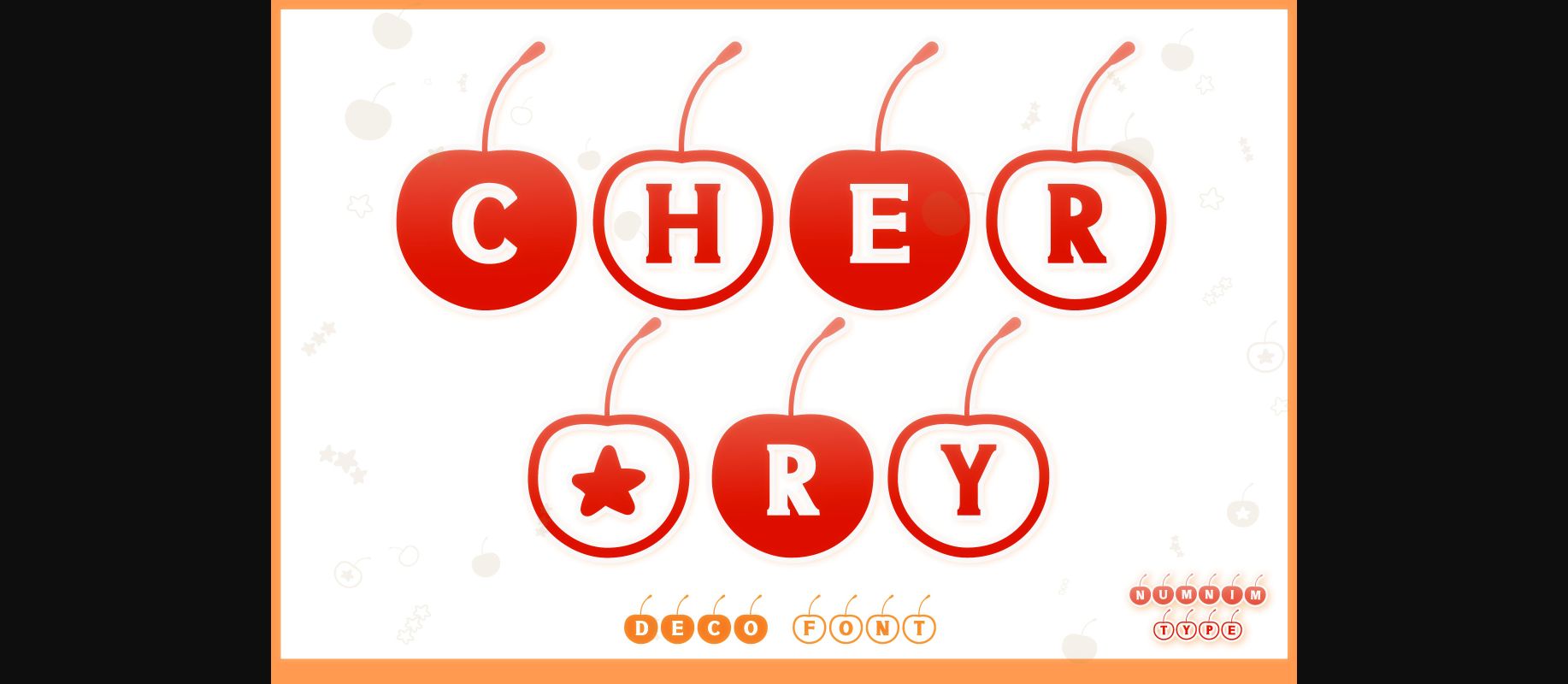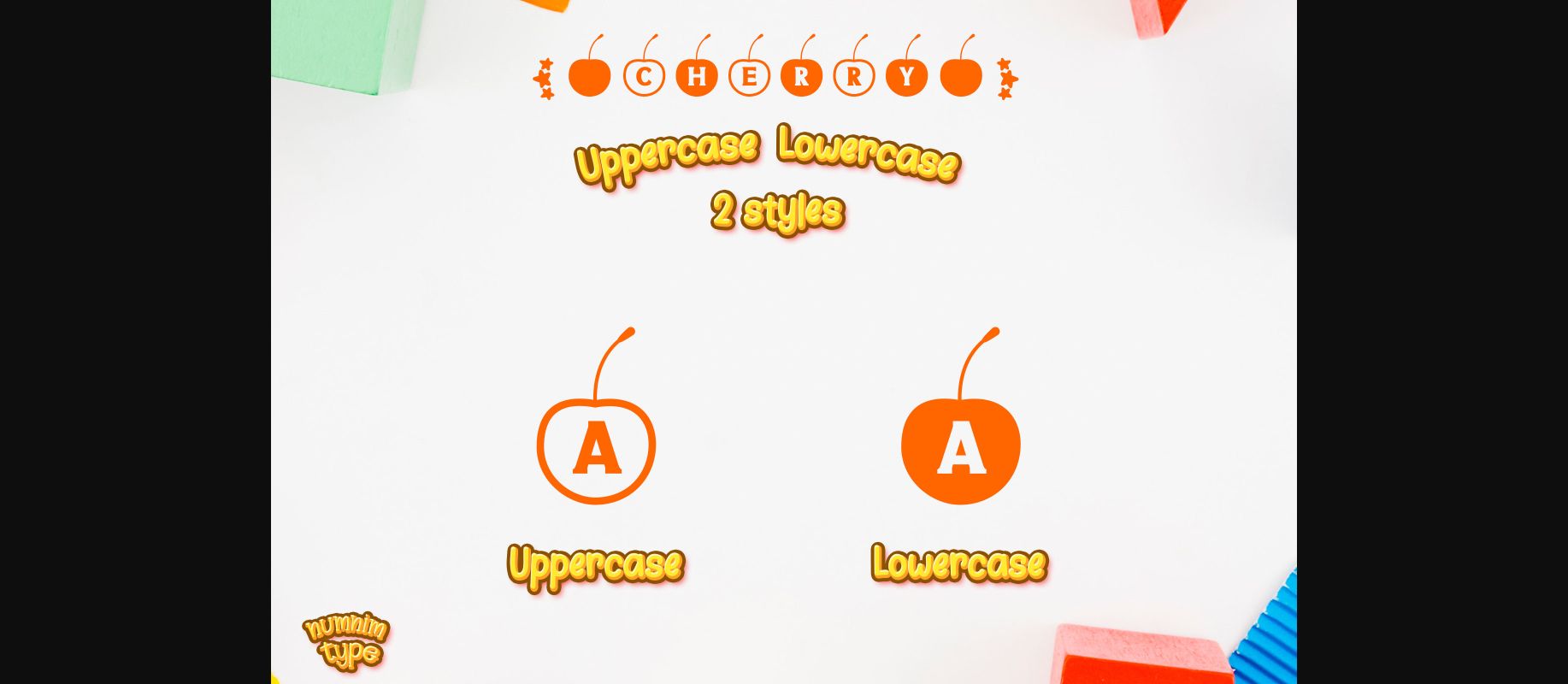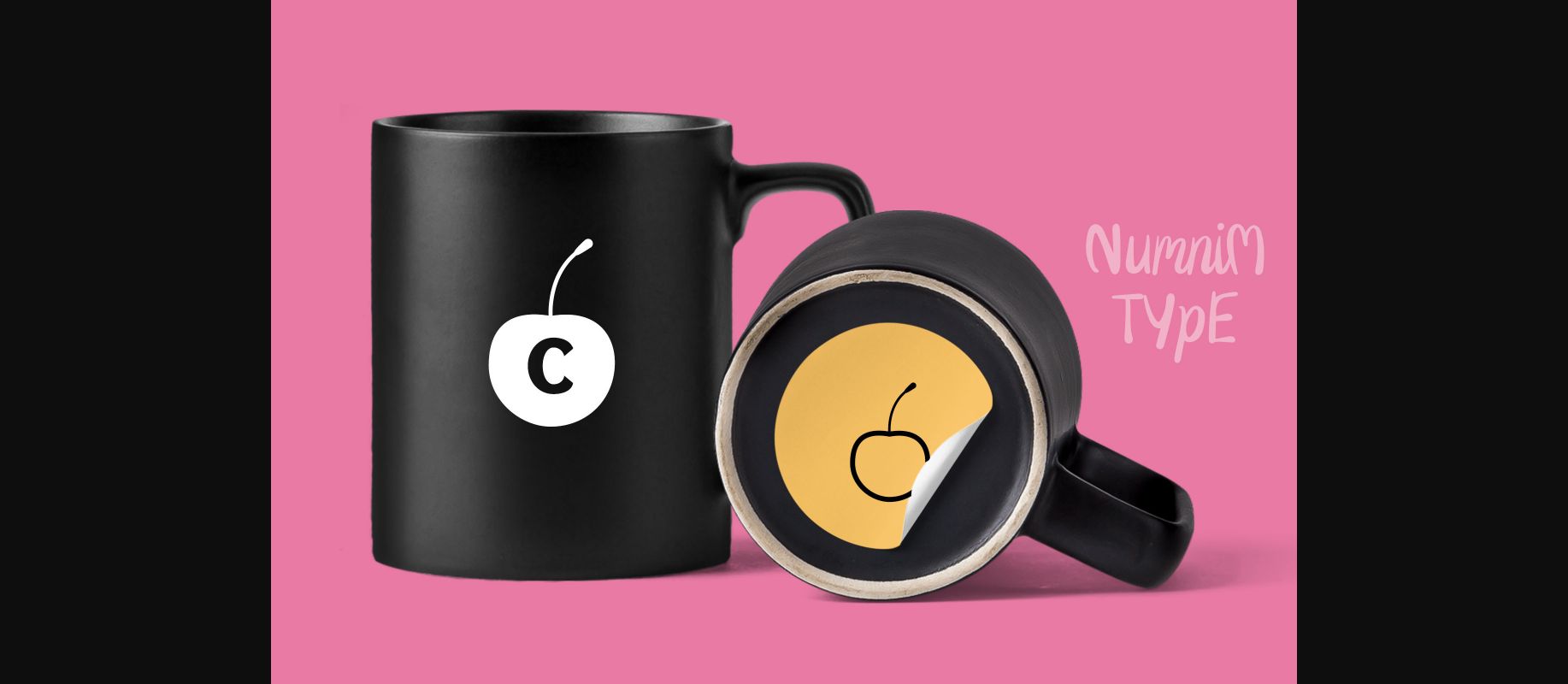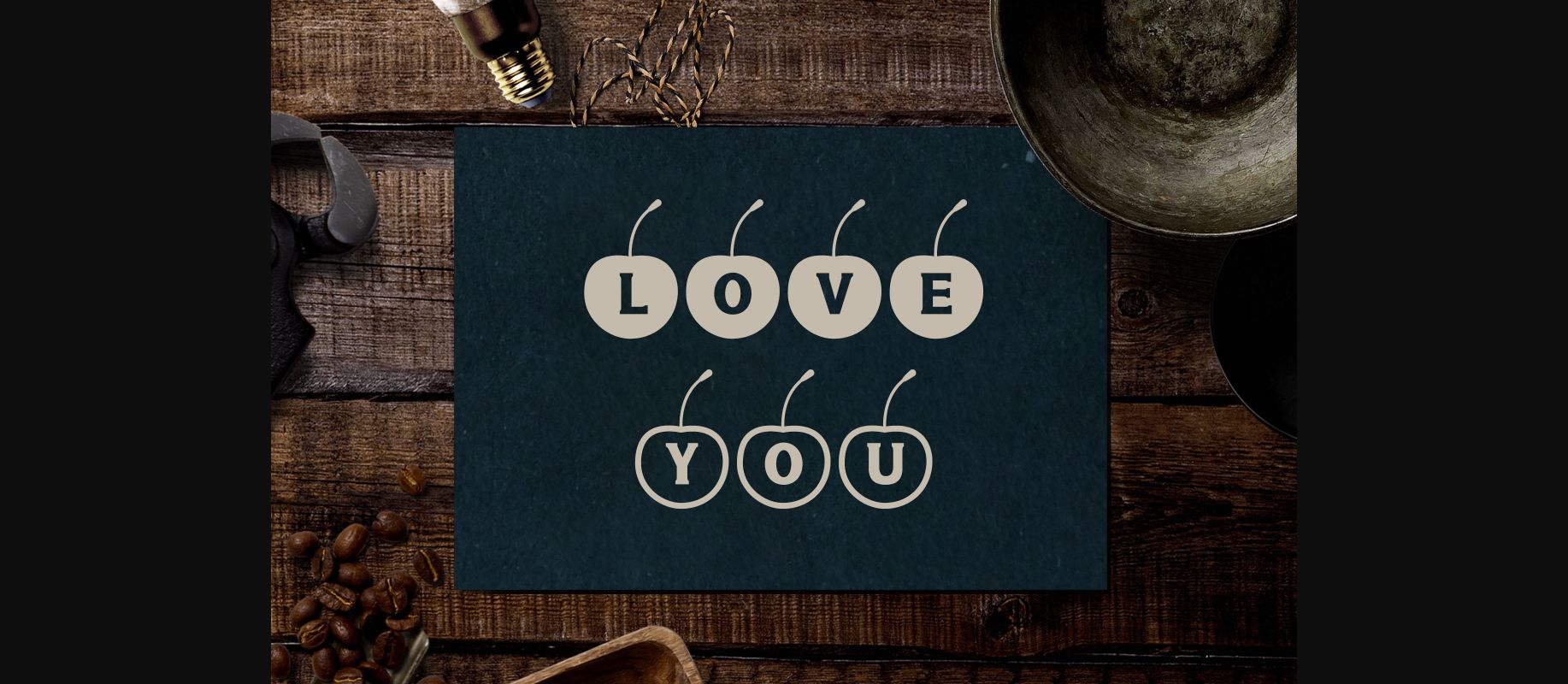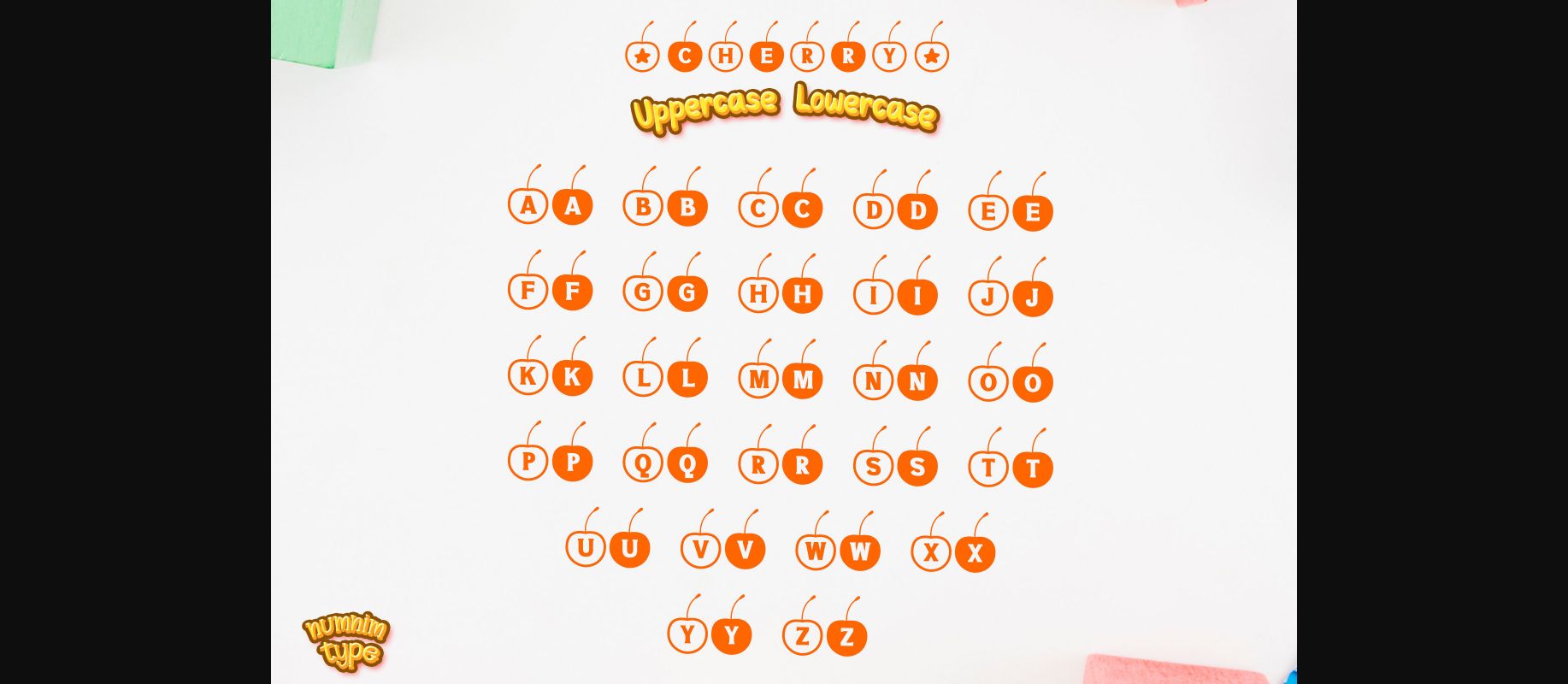
About Cherry Font
Cherry is a cool and uniquely crafted decorative font. Its fun and playful characters make it the perfect font for stickers, mugs, t-shirts, ornaments, summer event cards, event invitations, and many more! This font is PUA encoded which means you can access all glyphs and swashes with ease!